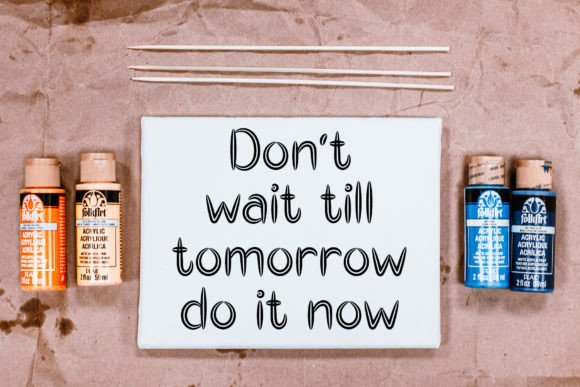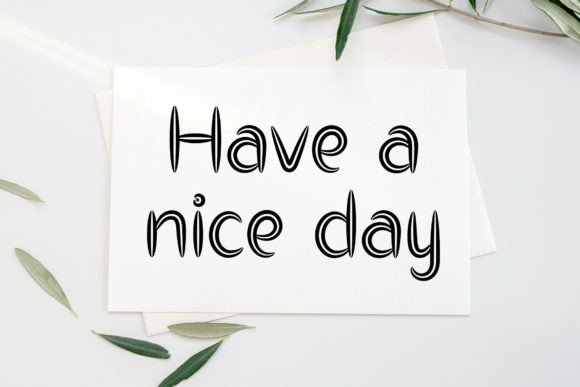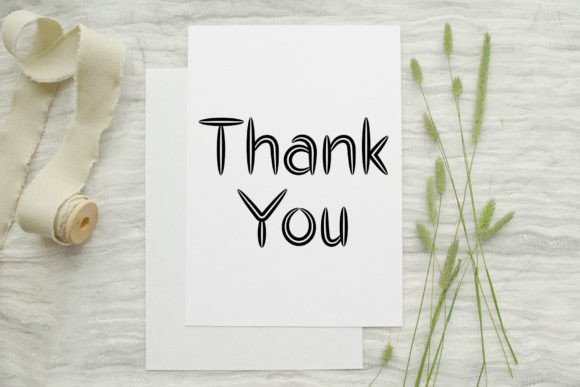
Introduction to Mullia Font
Have you ever found yourself stuck in a creative rut, rummaging through your design resources for that perfect font to bring your project to life? I know I have. It was during one such moment, while brainstorming ideas for a friend’s birthday card, that I stumbled upon the adorable Mullia Font. Its cute and friendly vibe immediately caught my attention, and I knew I had to give it a try.
As designers, we’re always on the lookout for high-quality design resources that can elevate our creative projects. Mullia Font is definitely one of those hidden gems that can add a personal touch to your work. With its transparent background, it’s perfect for layering and combining with other design elements. Plus, it’s available for free download, making it an excellent addition to any designer’s toolkit.
Key Features of Mullia Font
- Features a transparent background, making it perfect for use on any background color or image.
- Unique, stylish design with a modern aesthetic, suitable for a wide range of creative applications.
- Perfect for use in digital design projects, including logos, branding, and graphics, as well as print materials like business cards and brochures.
Honest Review: Mullia Font
As a designer, I’m always on the lookout for high-quality design resources to elevate my creative projects. Recently, I stumbled upon the Mullia Font, and I’m excited to share my honest review with you.
- ✨ The high-quality design ensures crisp and clear text, perfect for various applications.
- ✨ The transparent background allows for seamless integration with any design element.
- ⚠️ The font family is relatively small, so you may not find as many styles and variations as you’d like.
Overall, I’m impressed with the Mullia Font. While it may have some limitations, its high-quality design and free download make it a valuable addition to any designer’s toolkit. If you’re working on a creative project and need a reliable font, I’d definitely recommend giving Mullia Font a try.
Tips for Getting the Most Out of Mullia Font
Experiment with different font sizes and styles to create a unique look for your design. Use the transparent background feature to create engaging and eye-catching graphics. Mullia Font is a versatile design resource that can be used in a variety of creative projects.
Mullia Font is commonly used in branding, marketing materials, and creative projects that require a high-quality and unique design. Its transparent background feature makes it ideal for graphic design, digital art, and other creative applications.